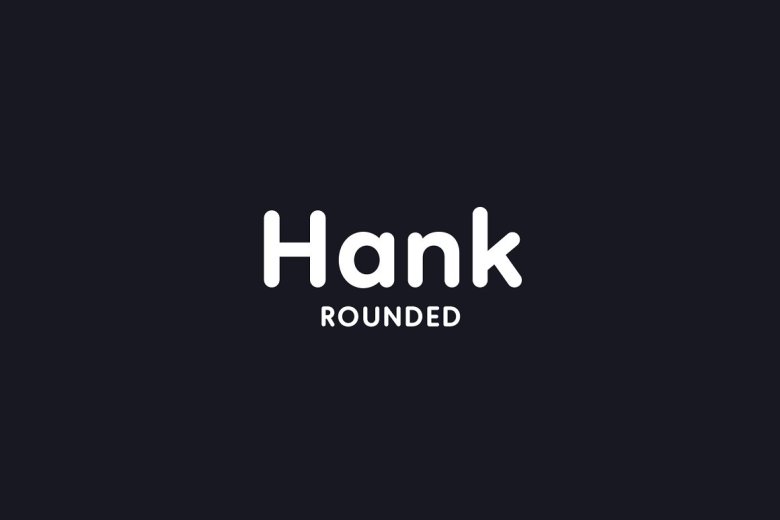
Hank Rounded Font Family
Hank rounded is semi condensed sans serif, constructed with geometric shapes and is currently available is 4 weights.
Hank Rounded Font Family